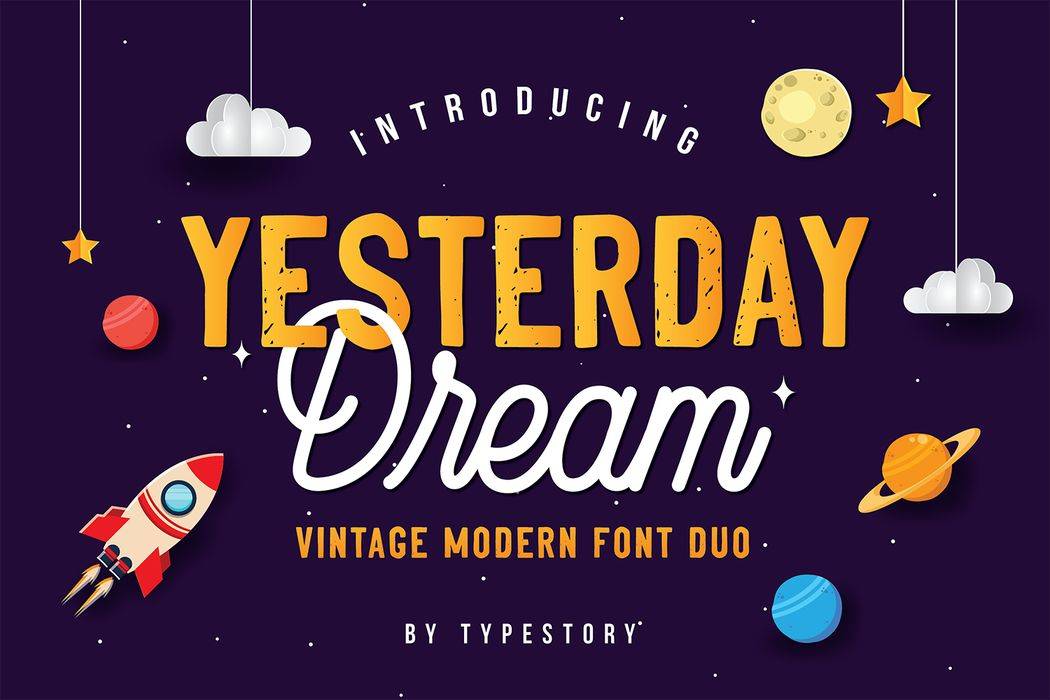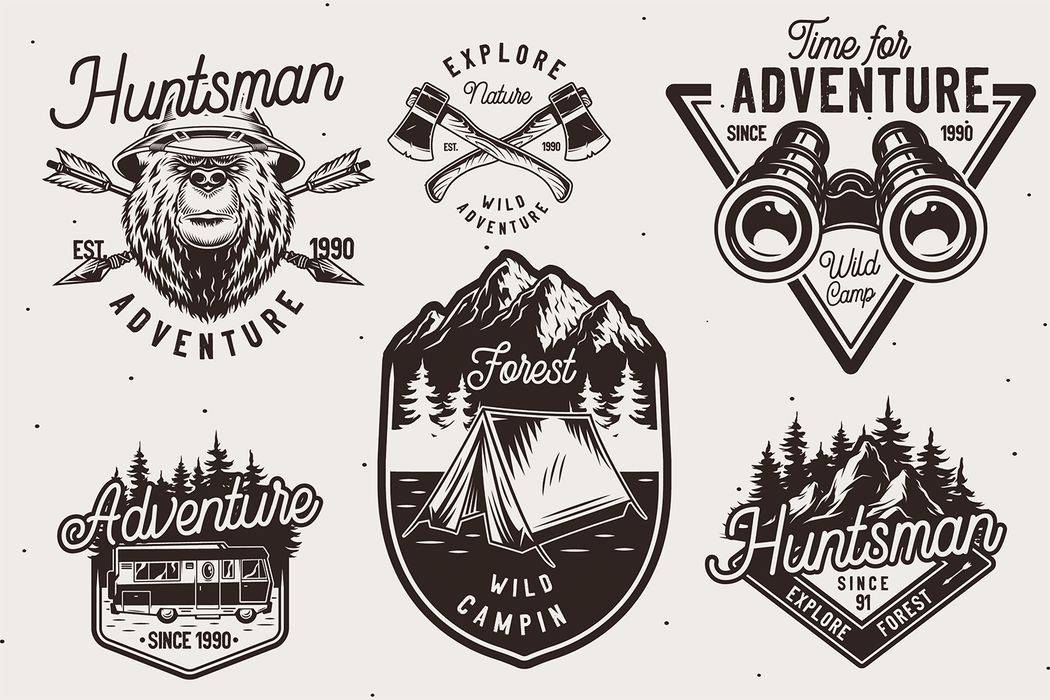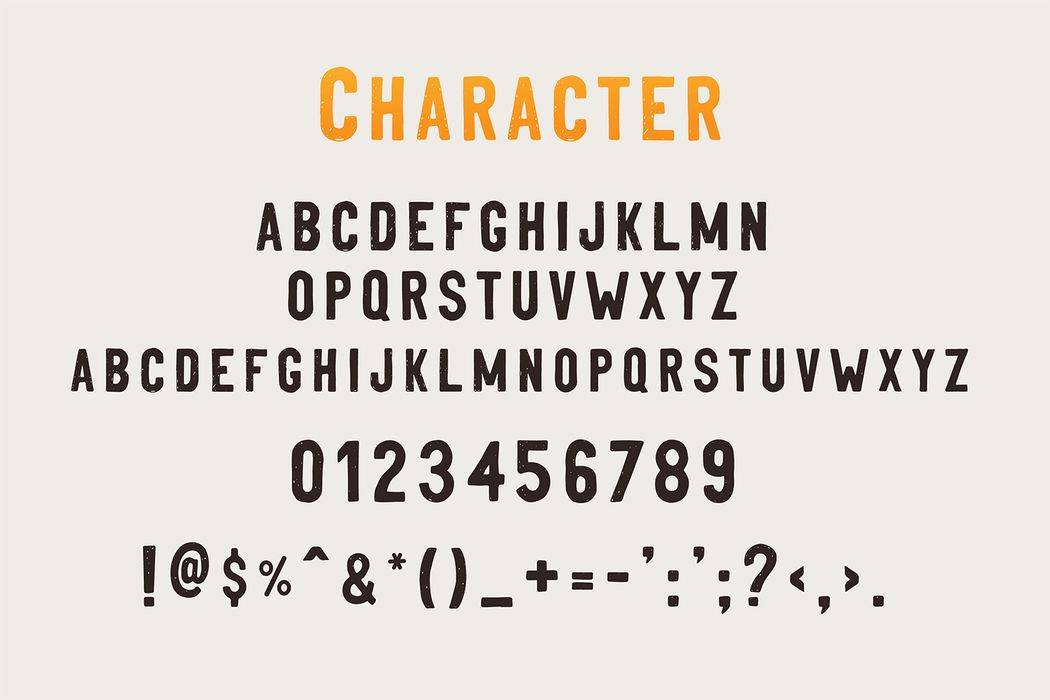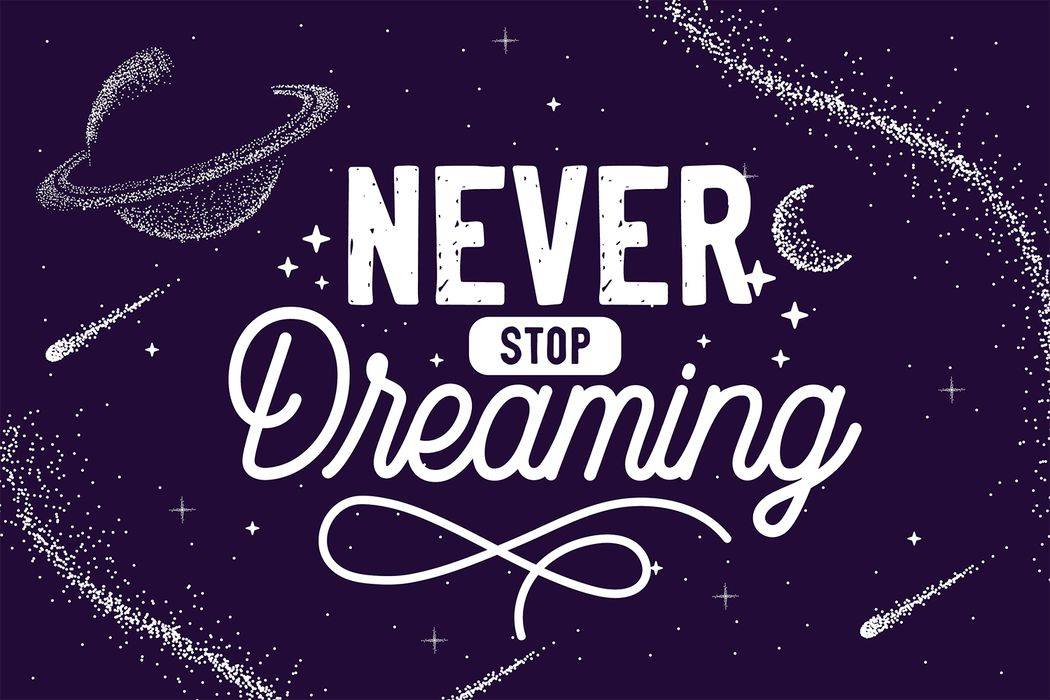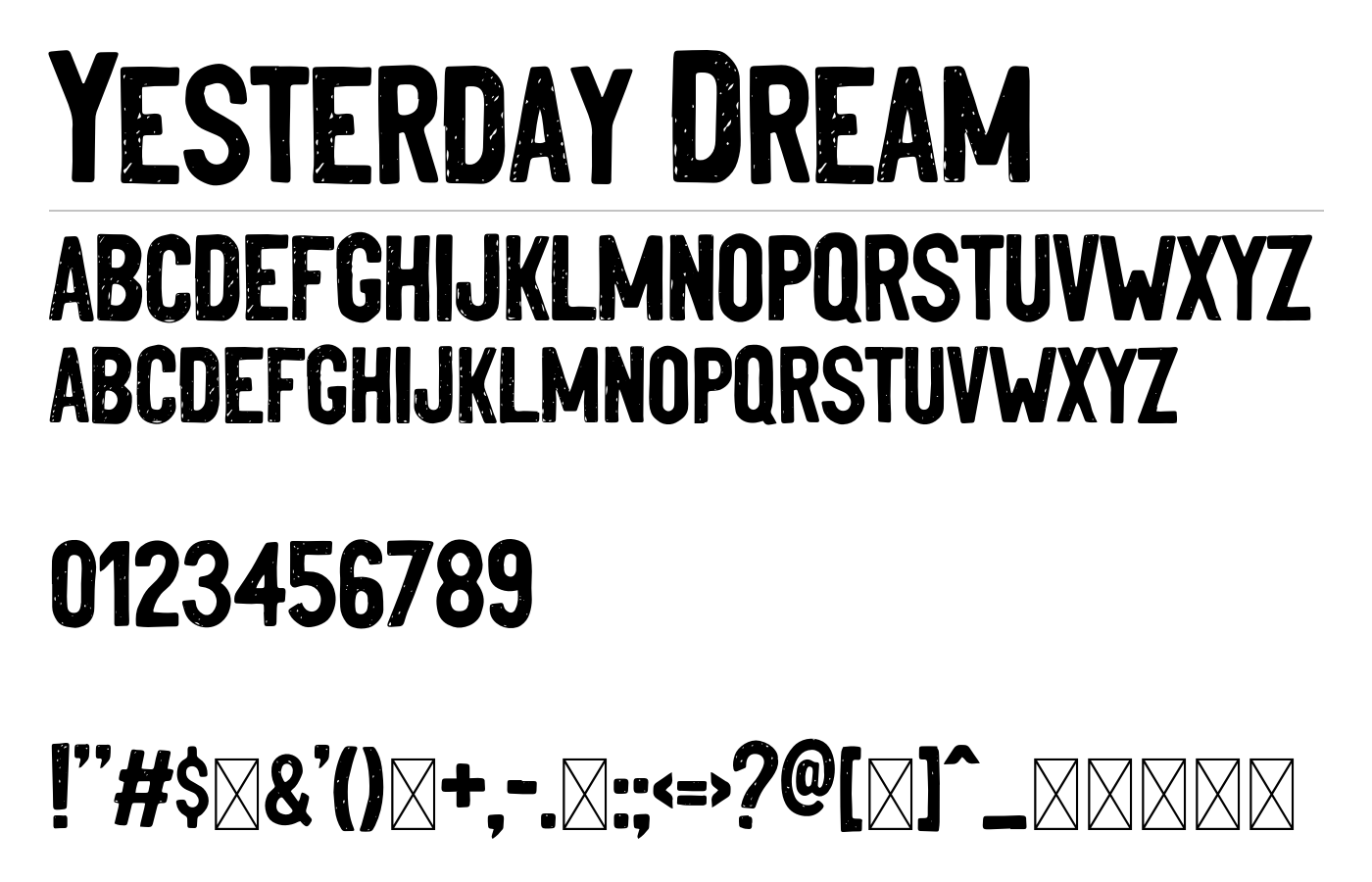
Yesterday Dream is a bold, narrow sans serif font with a handmade, slightly distressed texture that gives it a vintage, playful character. Its tall, all-caps letterforms with irregular edges create a friendly yet strong presence, making it ideal for eye-catching headlines, posters, and branding that want to evoke a nostalgic or artisanal feel. This font works particularly well in creative projects that need a unique, approachable style with a touch of rugged charm.
Yesterday Dream Font
About Yesterday Dream Font